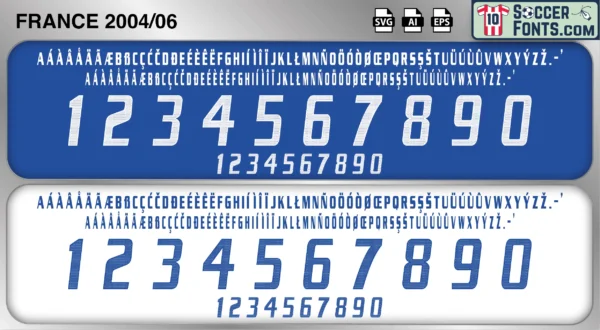
France 2004-06 Font
The France 2004-06 font is an editable soccer jersey lettering design in vector format inspired by the France kit style used during the 2004-06 football seasons. This football font artwork is prepared for football shirt recreations, custom jersey projects, football kit mockups and sports graphic design workflows.
The 2004-06 period began after UEFA EURO 2004 and evolved into one of the most memorable World Cup cycles in French football history. Experienced players such as Zinedine Zidane, Thierry Henry, Patrick Vieira, Claude Makélélé and Lilian Thuram returned to help guide the national team through qualification for the 2006 FIFA World Cup. France entered the tournament with a blend of experienced leaders and talented younger players, gradually improving throughout the competition. The squad produced impressive victories over Spain, Brazil and Portugal before reaching the World Cup Final in Berlin.
The France 2004-06 font became associated with the remarkable final chapter of Zidane’s international career and one of the most dramatic World Cup campaigns of the modern era. France shirts from this period remain especially popular among football shirt collectors because of their connection with the 2006 World Cup Final and a generation of players who left a lasting impact on football history. The France 2004-06 font reflects a period of leadership, experience and tournament excellence, capturing one of the most iconic eras ever experienced by the French national team.